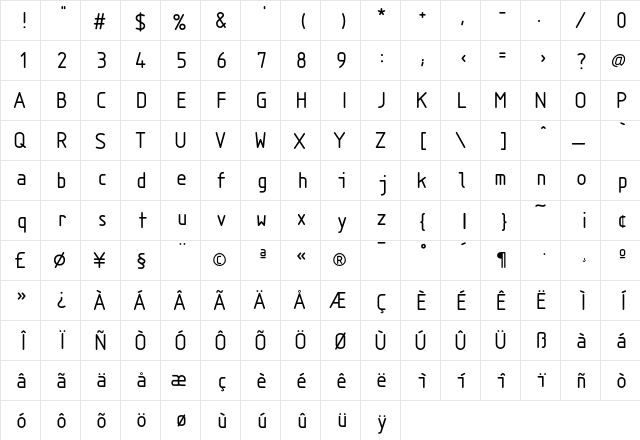
Isonorm3098 Monospaced
| Style | Monospaced |
Design Context for Isonorm3098 Typeface
Isonorm3098 uses fixed-width spacing throughout, giving it the structured, systematic character associated with coding environments and technical documentation.
Pro Tip: Pair Isonorm3098 with a proportional sans for UI contexts where code-style labels and regular body copy need to coexist.